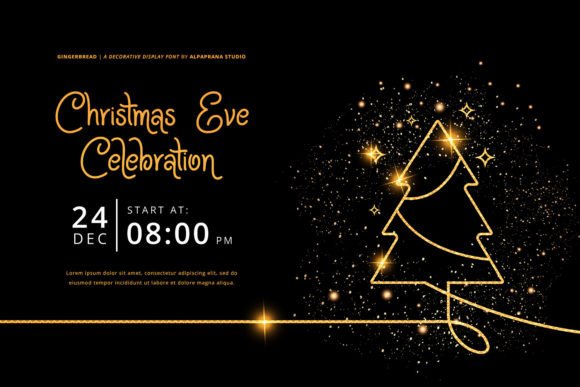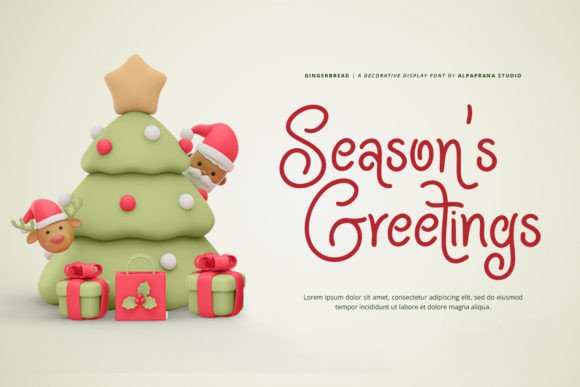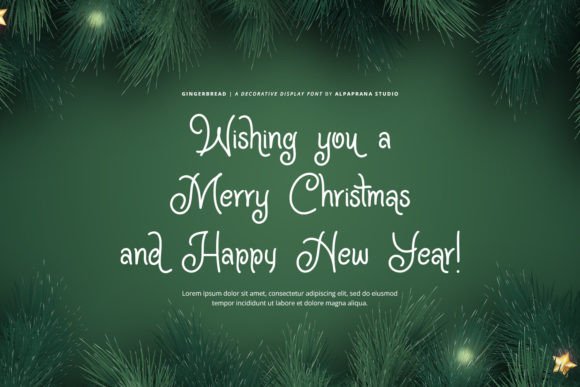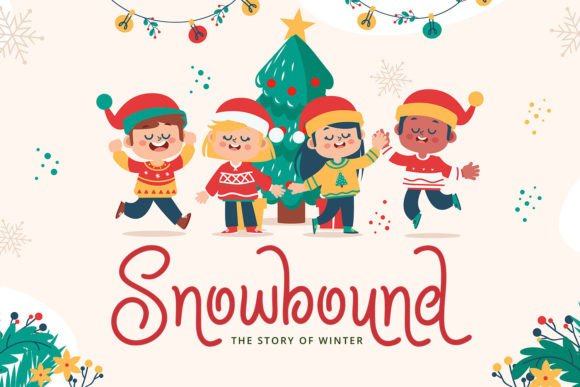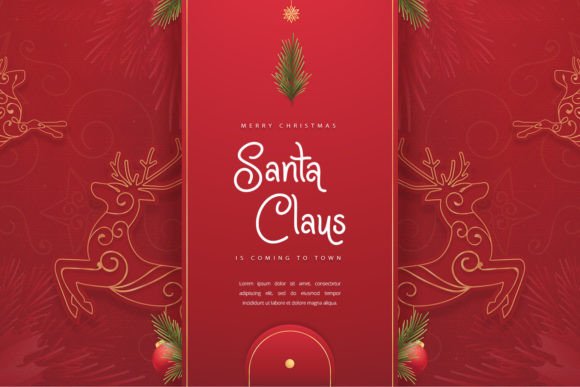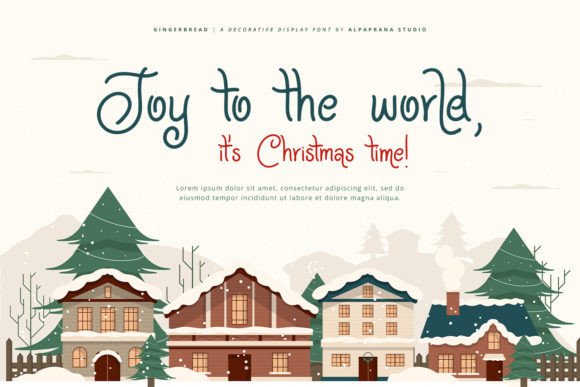
Gingerbread Font: A Deliciously Decorative Addition to Your Typography Collection
As the holiday season approaches, designers and crafters are on the lookout for typography that’s merry, bright, and festive. If you’re searching for a font that embodies the warmth and coziness of the season, look no further than the Gingerbread Font. This gorgeous decorative font is a perfect addition to your fonts’ library, and its versatility makes it an incredible asset for any creative project.
The Charm of Gingerbread Font
Gingerbread Font is a stunning, hand-crafted typeface that’s reminiscent of traditional gingerbread house decorations. Its playful, whimsical design features intricate details and ornate flourishes that evoke the feeling of a winter wonderland. Whether you’re working on a holiday-themed project or simply want to add a touch of seasonal charm to your design, this font is sure to delight.
Why Gingerbread Font Stands Out
So, what makes Gingerbread Font so special? Here are just a few reasons why it’s an incredible addition to your typography collection:
- Unique and eye-catching design: The Gingerbread Font boasts a one-of-a-kind design that’s sure to turn heads. Its distinctive look and feel make it perfect for creating eye-catching titles, headings, and signage.
- Versatile and adaptable: Despite its festive appearance, the Gingerbread Font is surprisingly versatile. It can be used for a wide range of projects, from holiday-themed designs to everyday typography.
- High-quality and detailed: The font features intricate details and ornate flourishes, making it perfect for designs that require a high level of craftsmanship.
Using Gingerbread Font in Your Designs
So, how can you use the Gingerbread Font in your designs? Here are a few ideas to get you started:
- Holiday-themed projects: The Gingerbread Font is a no-brainer for holiday-themed designs, such as Christmas cards, invitations, and signage.
- Branding and packaging: Add a touch of seasonal charm to your branding and packaging with the Gingerbread Font. It’s perfect for creating eye-catching labels, tags, and packaging materials.
- Decorative accents: Use the Gingerbread Font to add decorative accents to your designs, such as titles, headings, and quotes.
Tips for Working with Gingerbread Font
Here are a few tips for getting the most out of the Gingerbread Font:
- Experiment with different sizes and colors: The Gingerbread Font looks great in a variety of sizes and colors. Experiment with different combinations to find the perfect look for your design.
- Mix and match with other fonts: The Gingerbread Font pairs well with a range of other fonts. Try mixing and matching it with different typefaces to create a unique look.
- Pay attention to legibility: While the Gingerbread Font is beautiful, it can be intricate and detailed. Make sure to pay attention to legibility, especially when using it for body text or other small sizes.